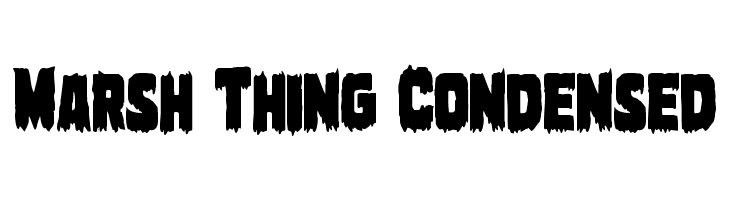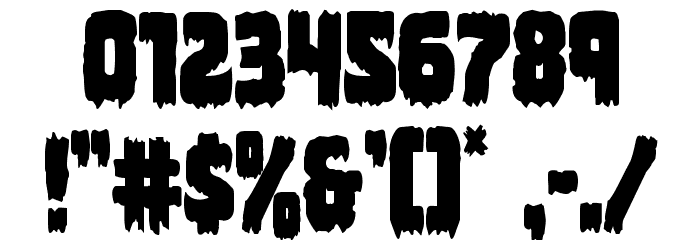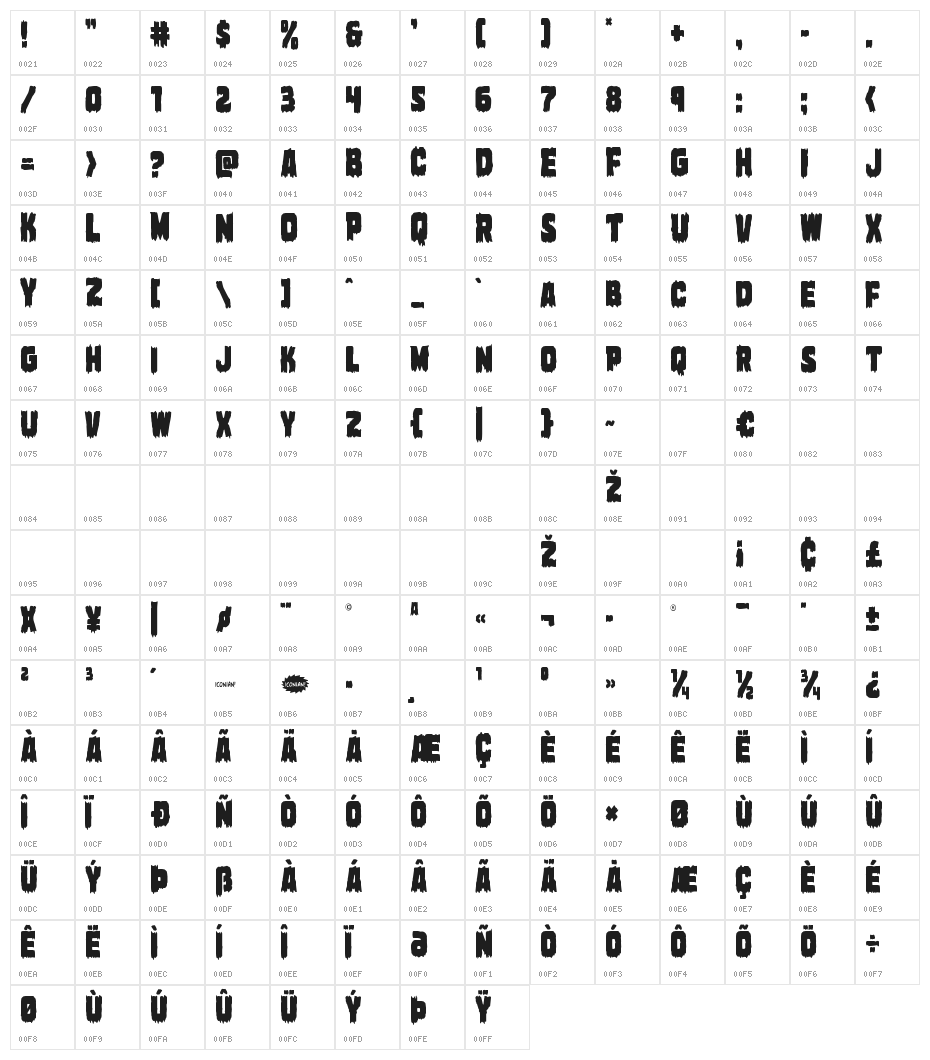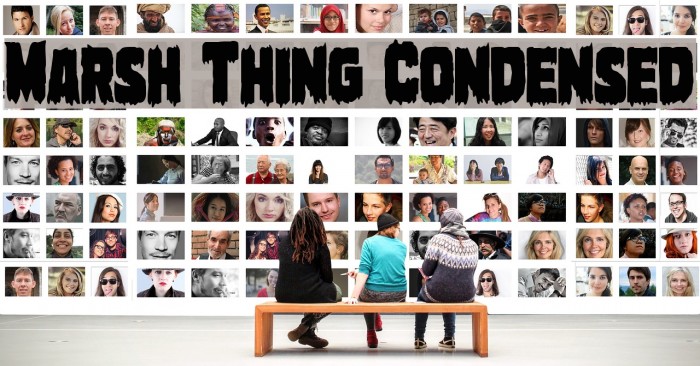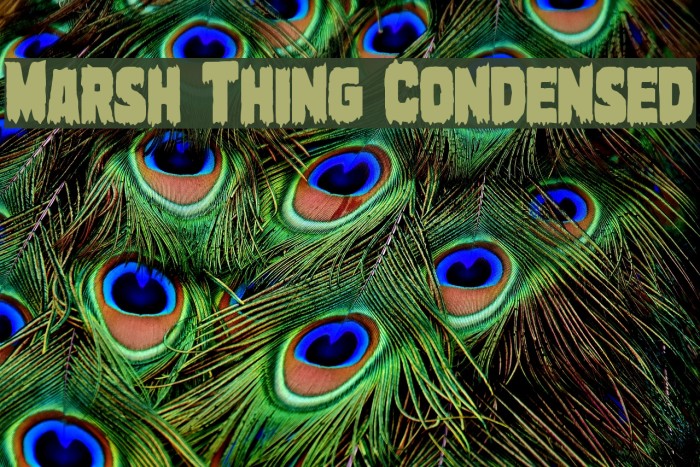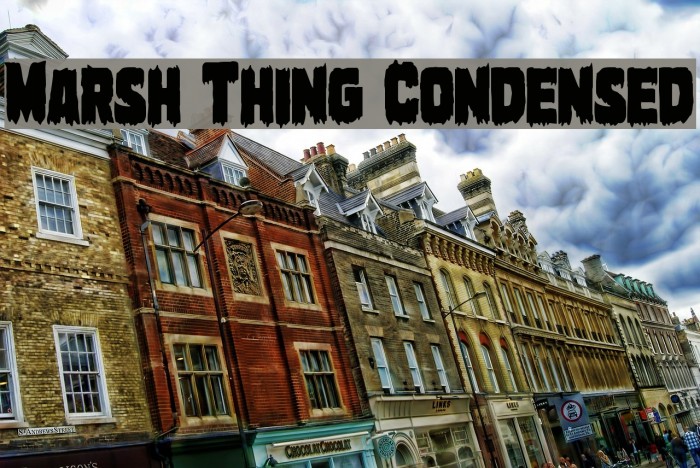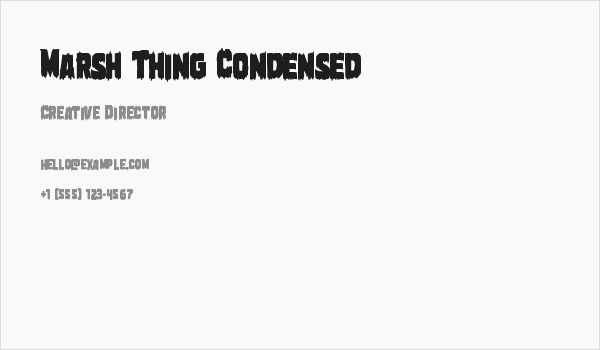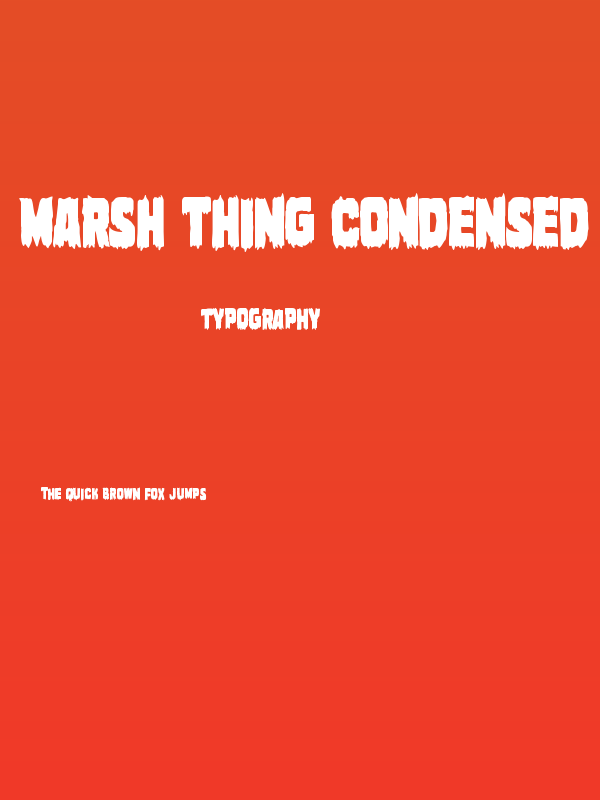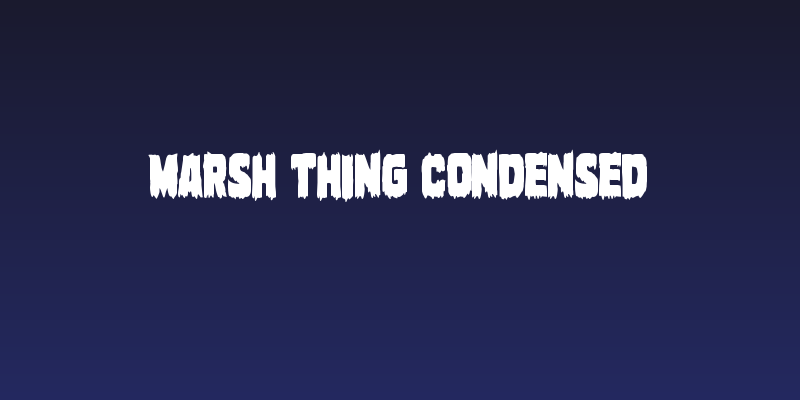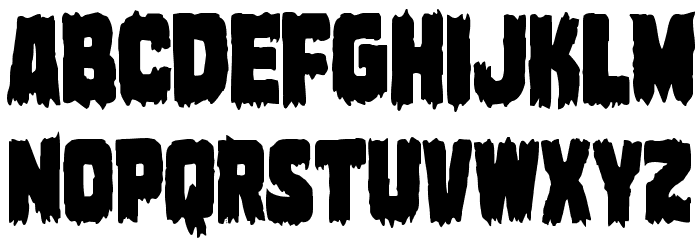
Marsh Thing Condensed Font
Marsh Thing Condensed Description
This font features a bold and dramatic style with a distressed, rugged appearance. The characters are heavily condensed, creating a compact and impactful look. The edges of each letter are irregular and jagged, giving it a raw, organic feel reminiscent of horror or thriller themes. The uppercase and lowercase letters maintain a consistent style, with numbers and special characters following the same design principles. This font is ideal for creating a sense of urgency or intensity, making it perfect for posters, album covers, or Halloween-themed projects.
| Use Case | Headlines, Posters, Logos |
| Proposed Projects | Perfect for Halloween posters, horror movie titles, spooky event flyers, and themed merchandise. |